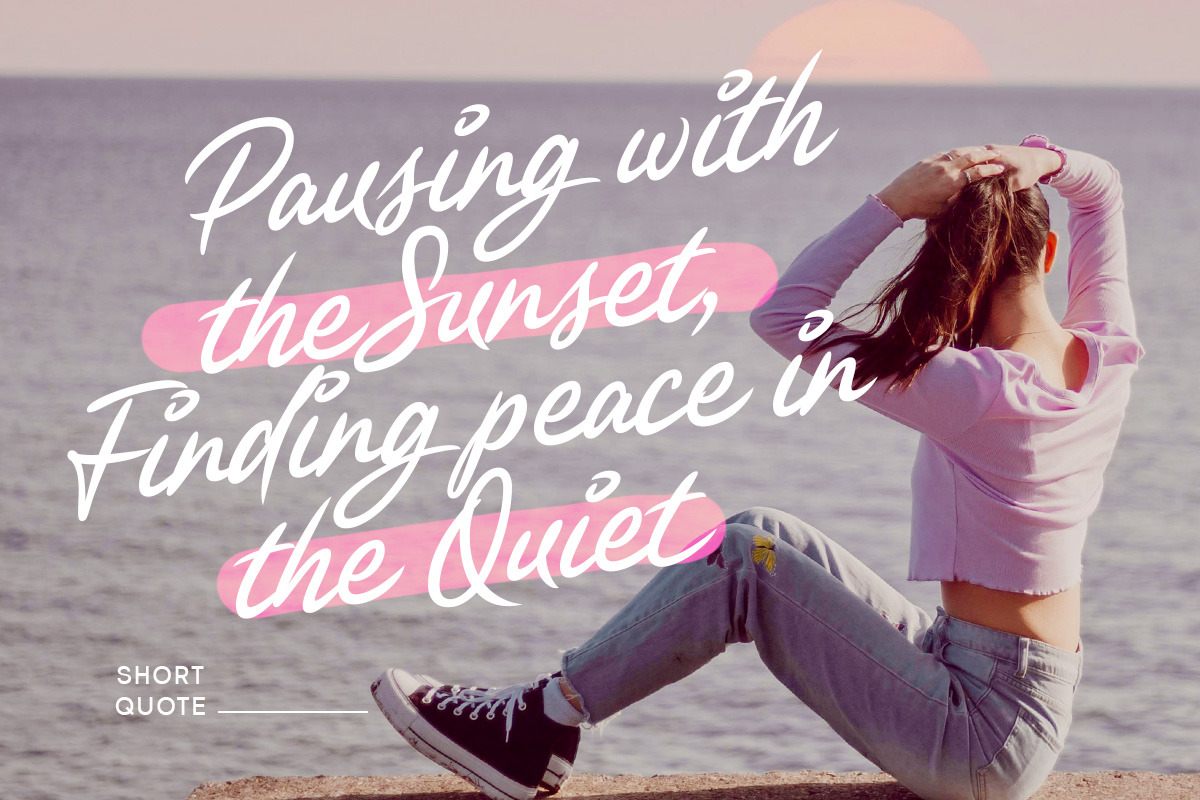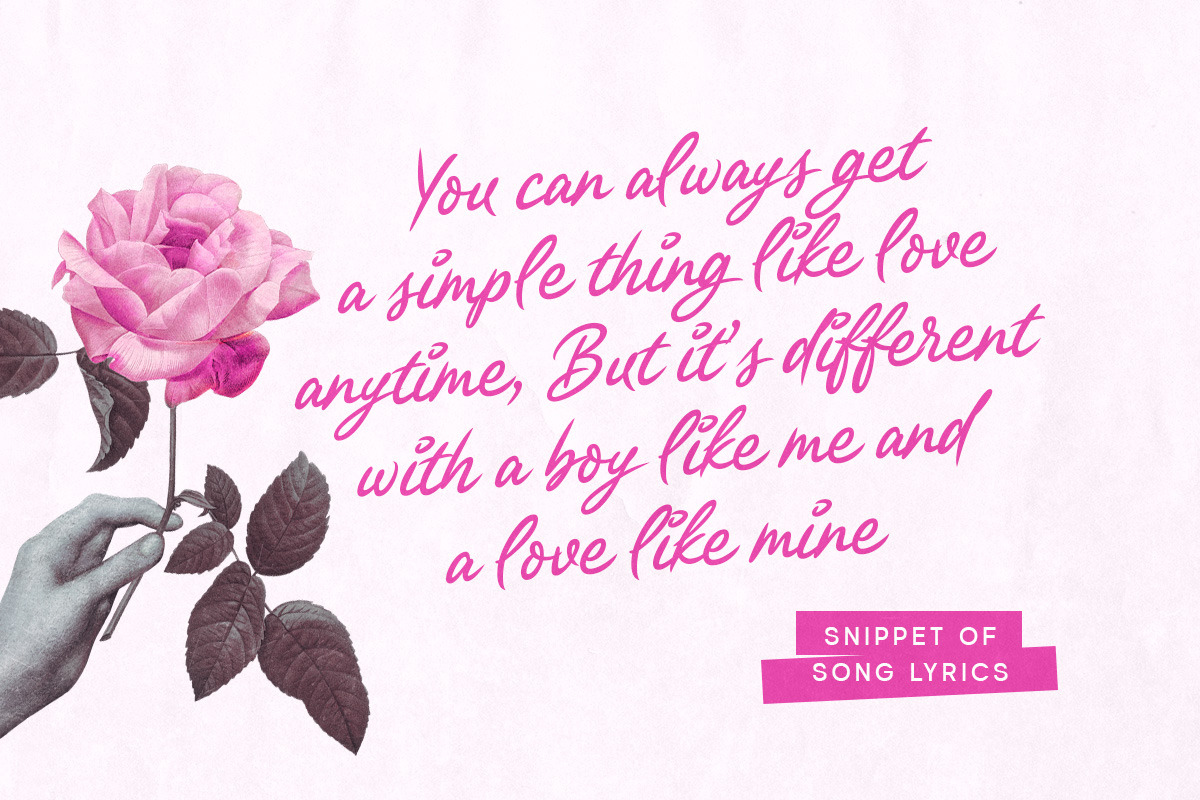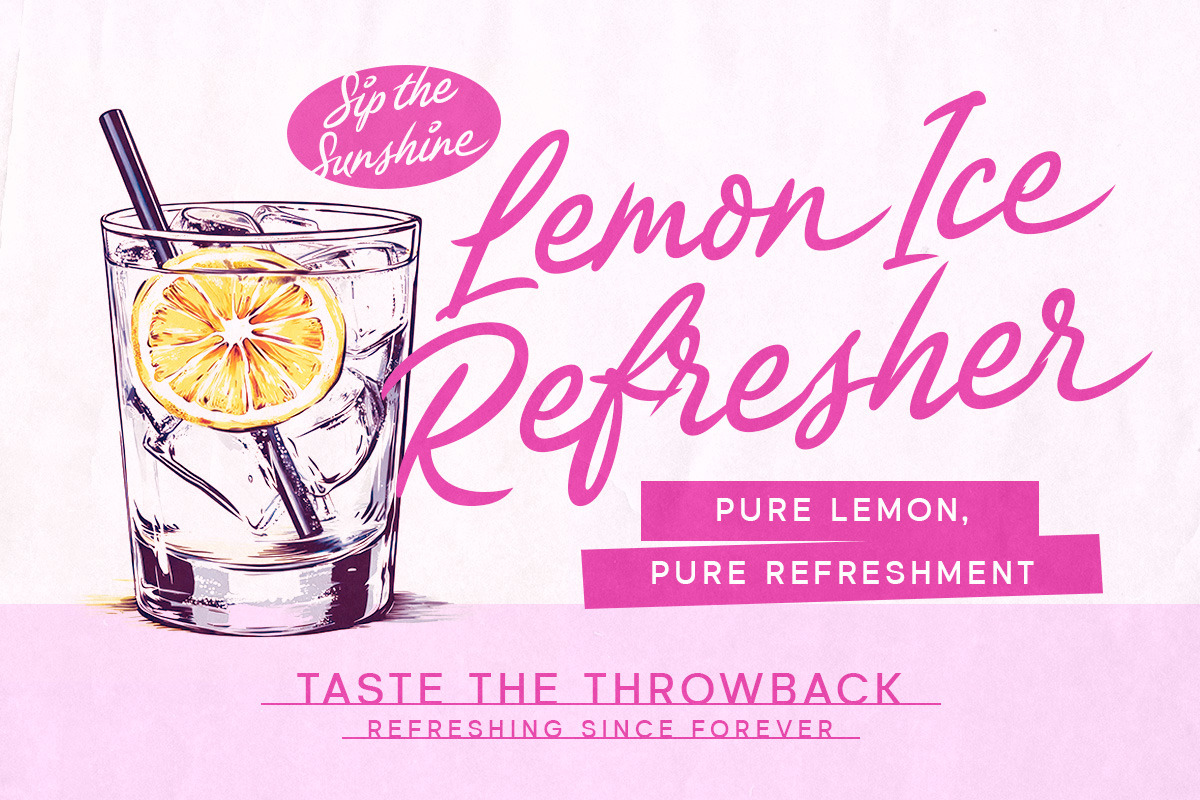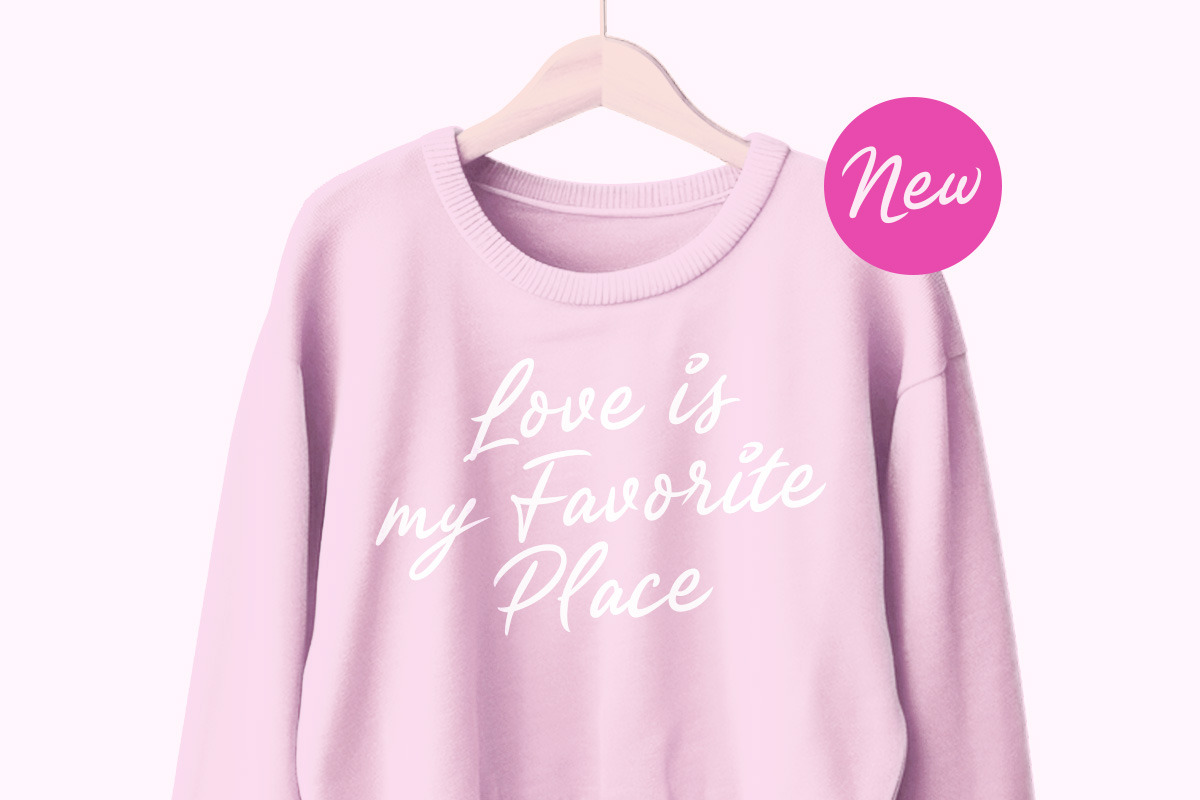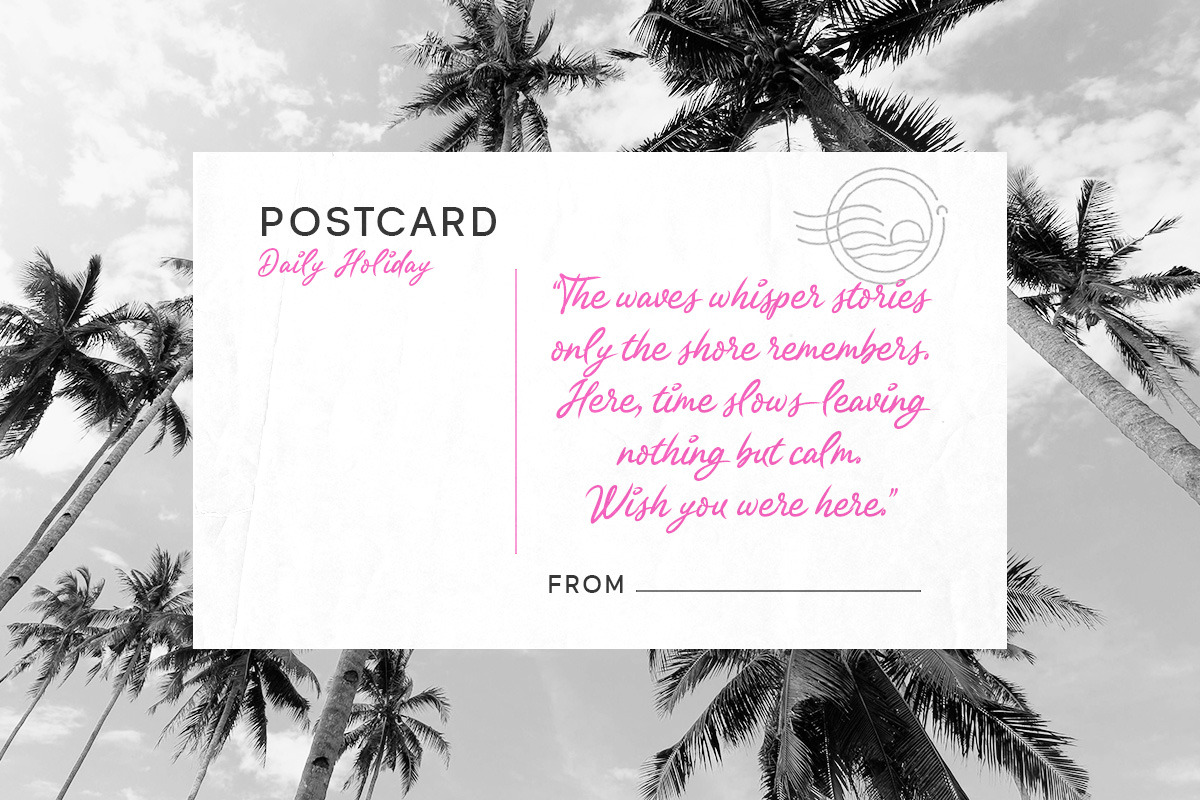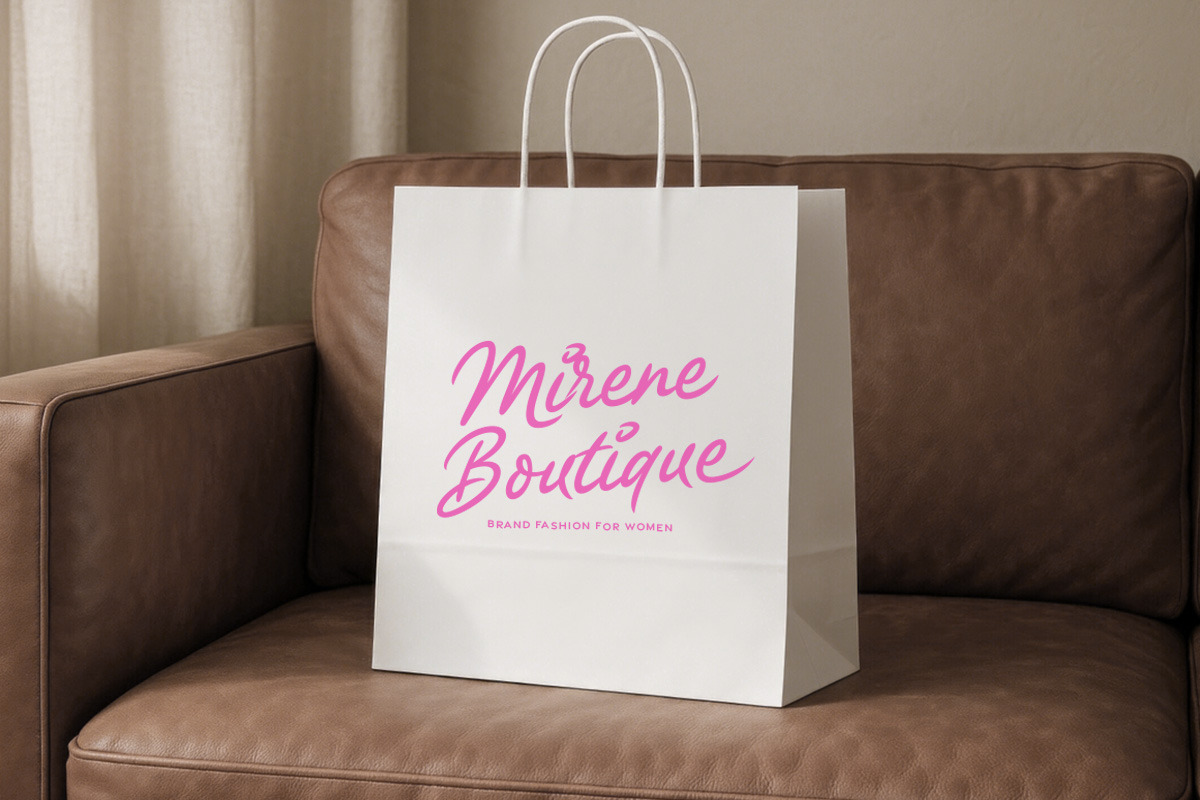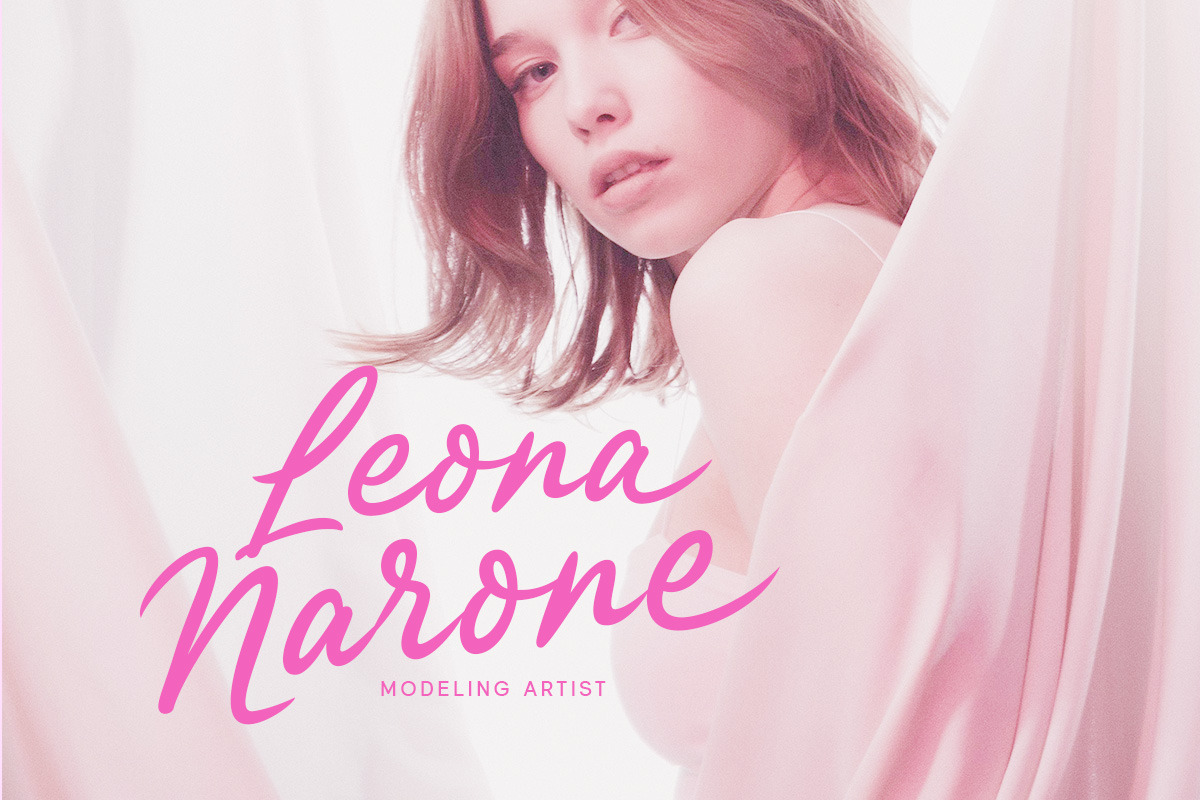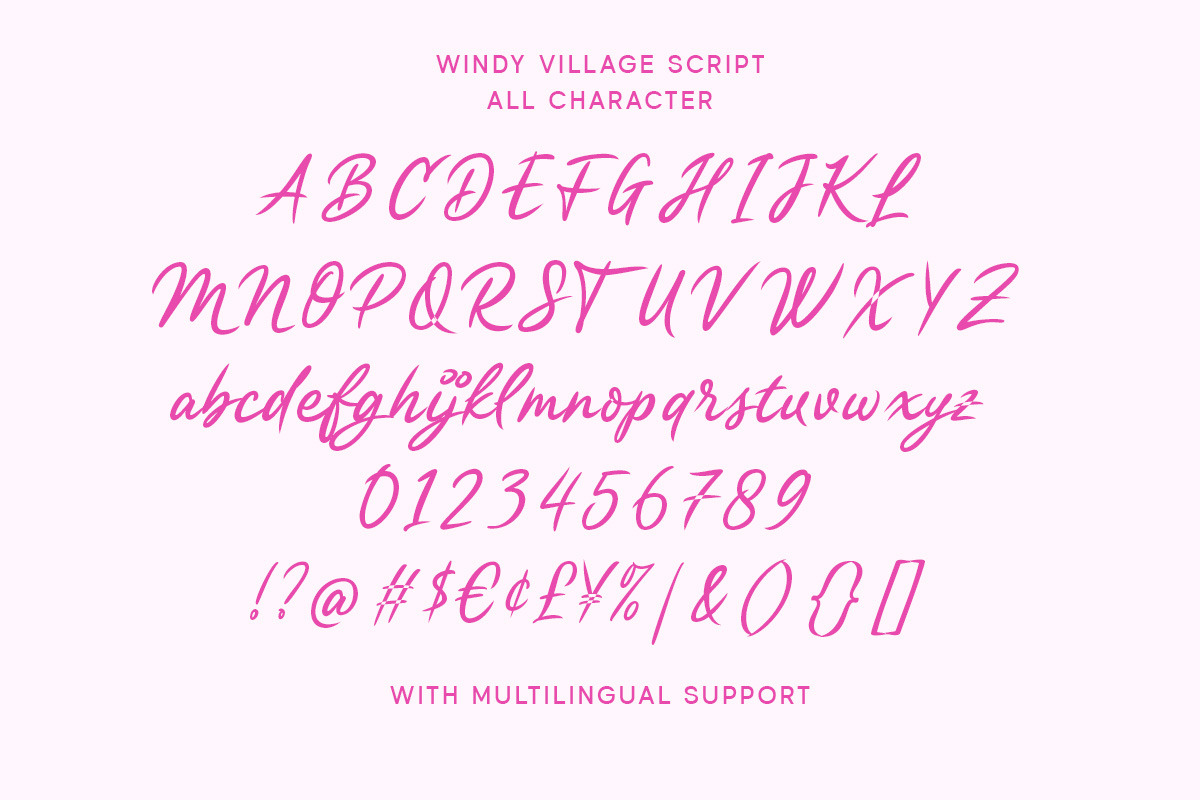
Windy Village Girly Handwritten
Windy Village is a lively handwritten script font that flows with natural movement and effortless charm. Its smooth curves and slightly bold strokes create a sense of spontaneity and warmth, perfect for branding, packaging, invitations, and social media graphics. The organic letterforms give a modern yet friendly personality, making it suitable for creative projects that want to convey joy, freshness, and authenticity.